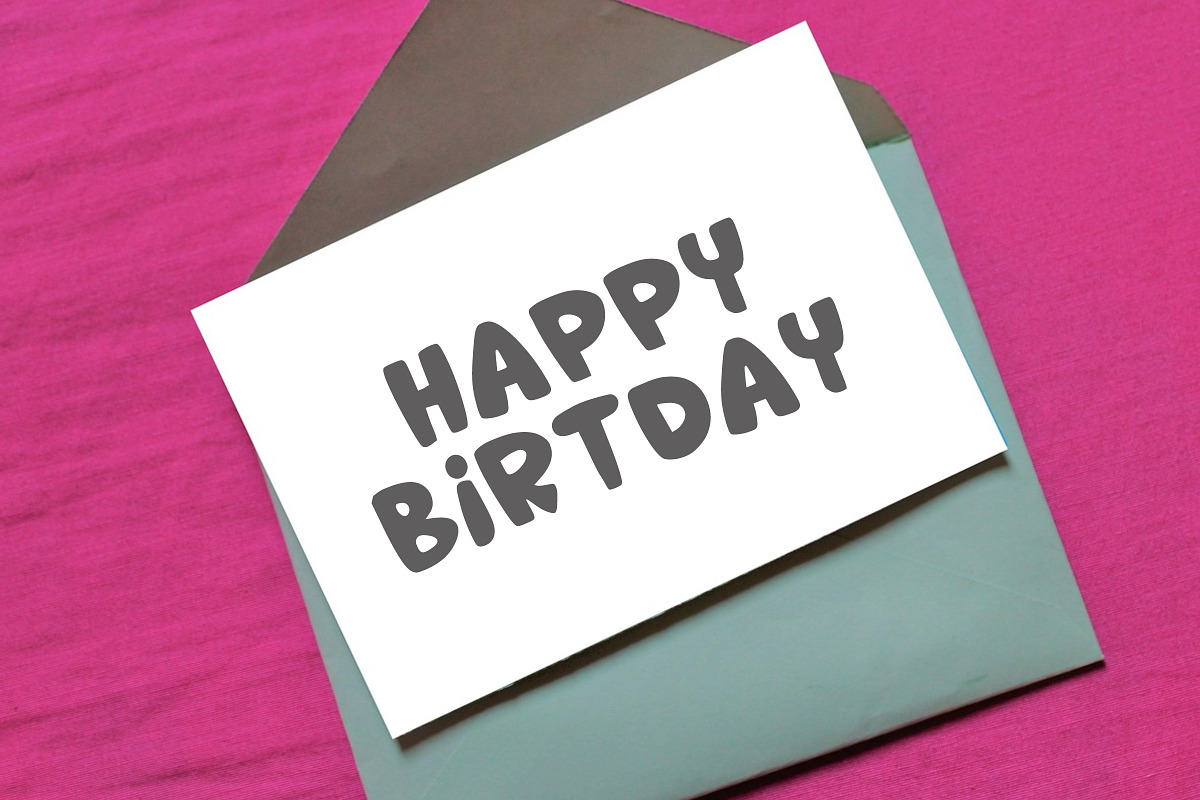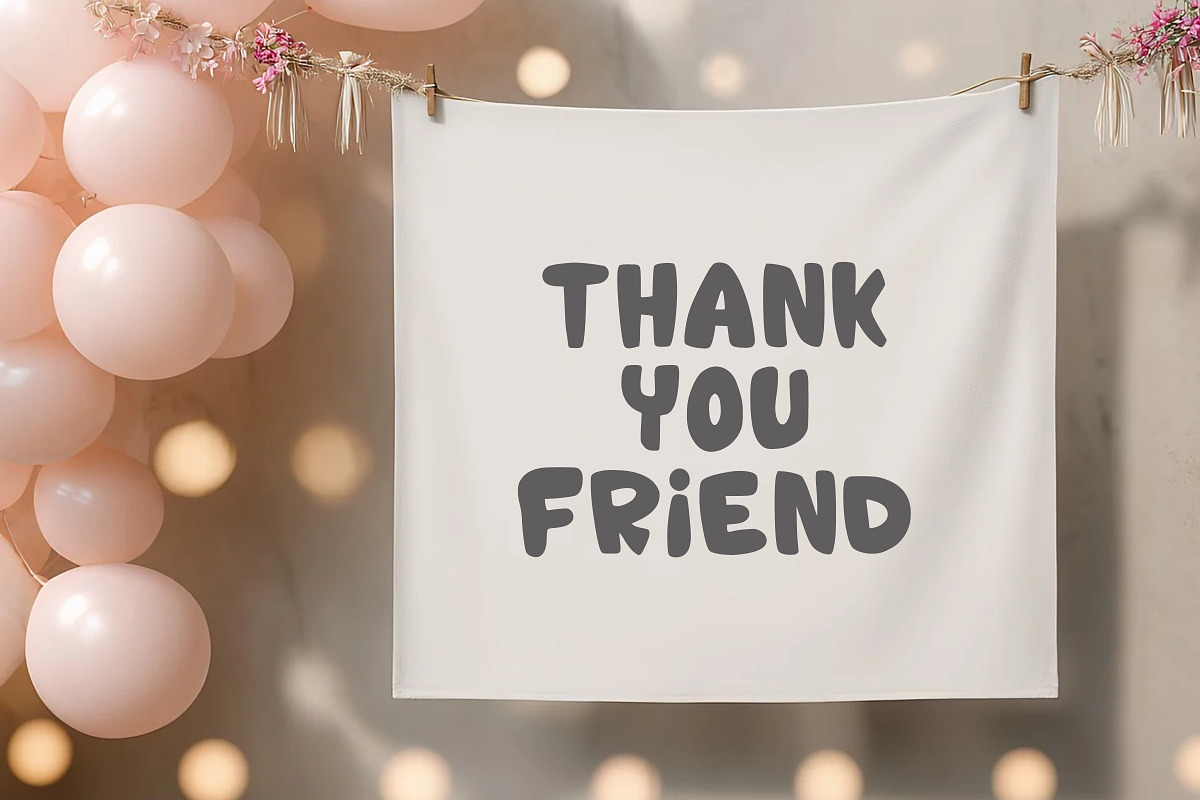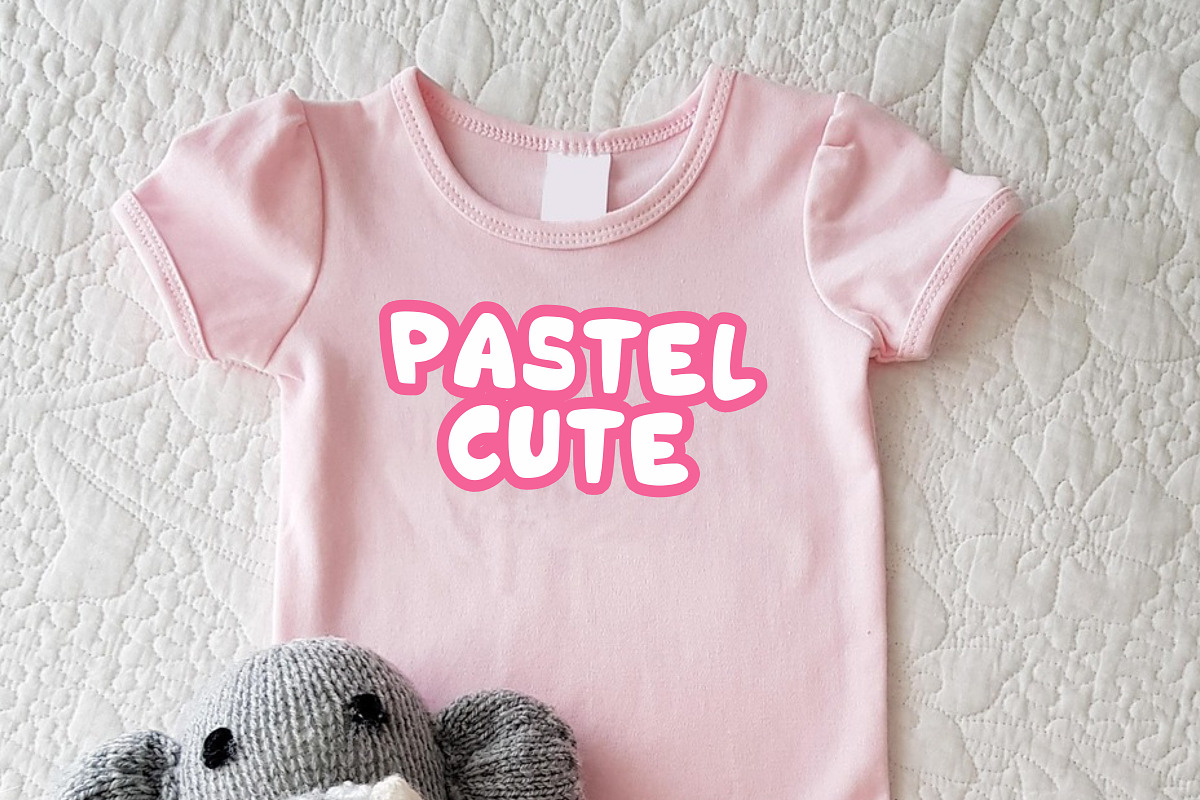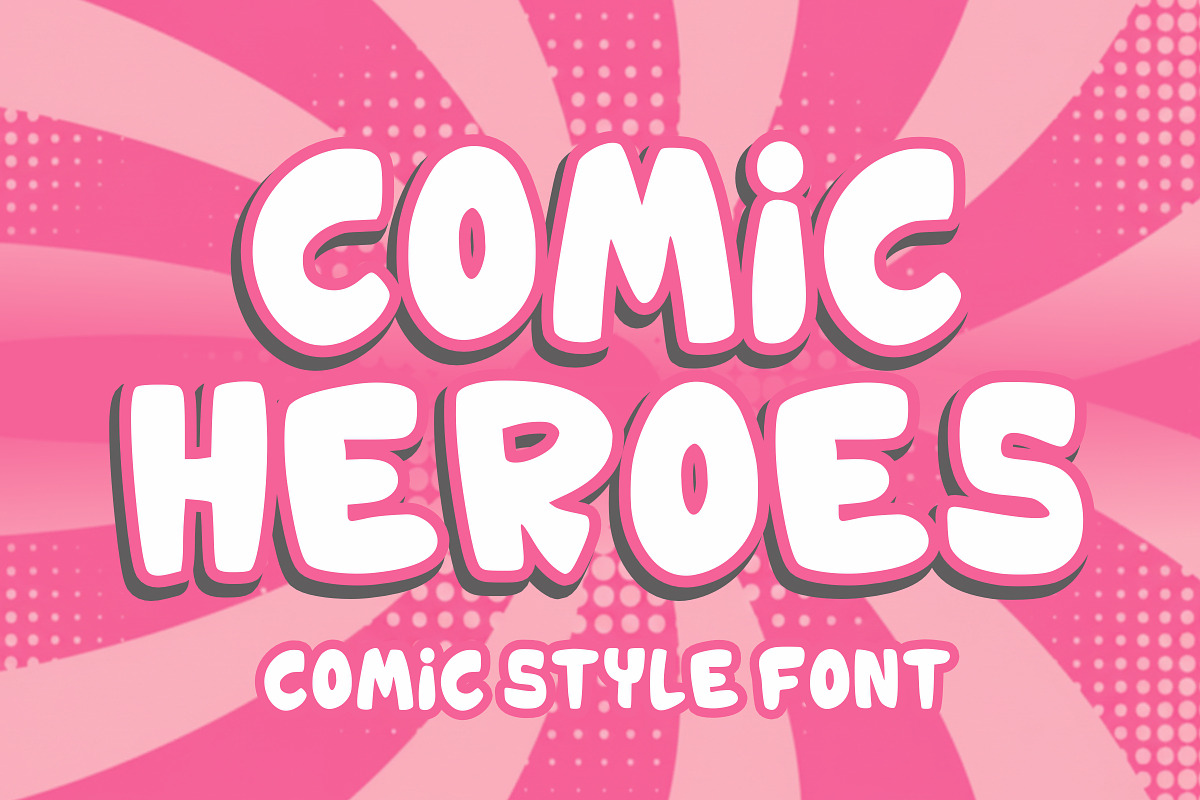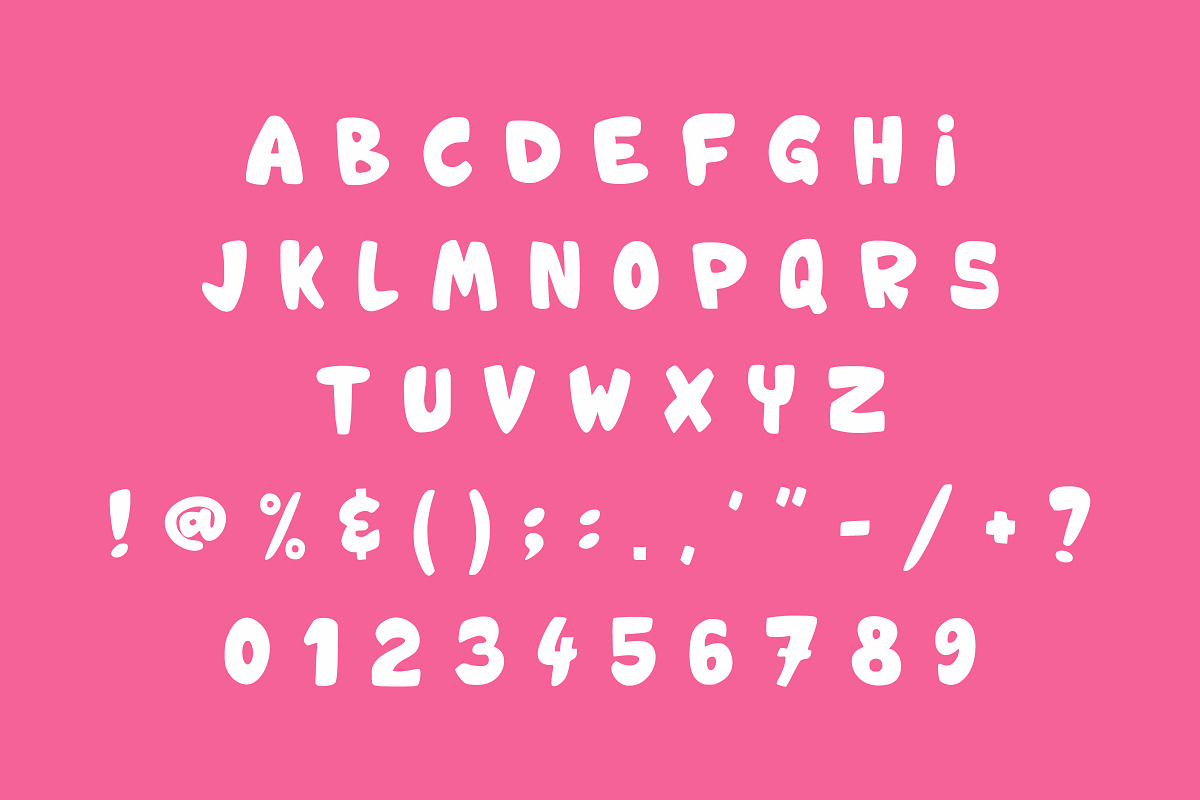
Comic Heroes
Comic Heroes is a bold, playful, and eye-catching comic style font inspired by fun cartoons and pop art visuals. This font features thick rounded letters with a soft outline, making it perfect for designs that need a cheerful, energetic, and friendly look.
Ideal for kids projects, comic books, stickers, posters, social media graphics, merchandise, branding, and playful typography designs. Comic Heroes brings joy, fun, and creativity to every project!